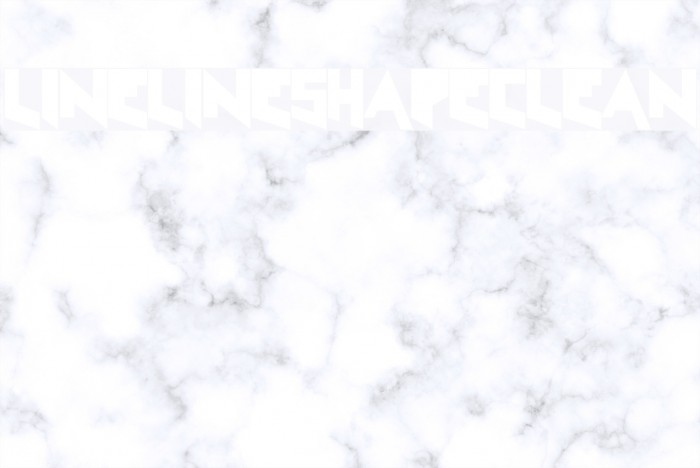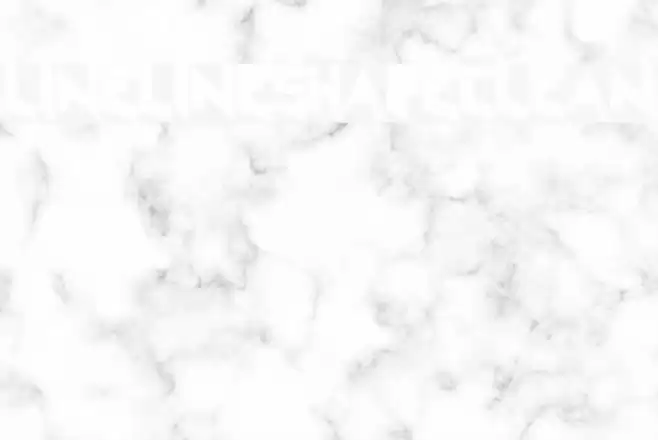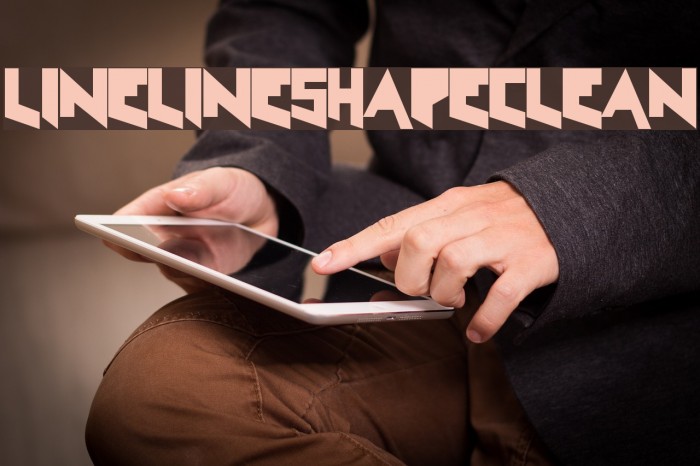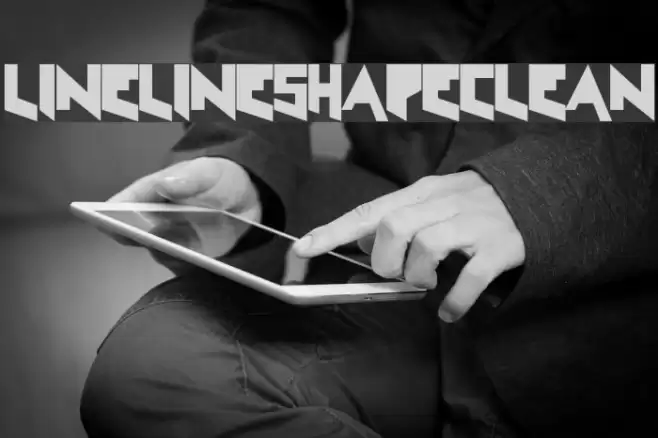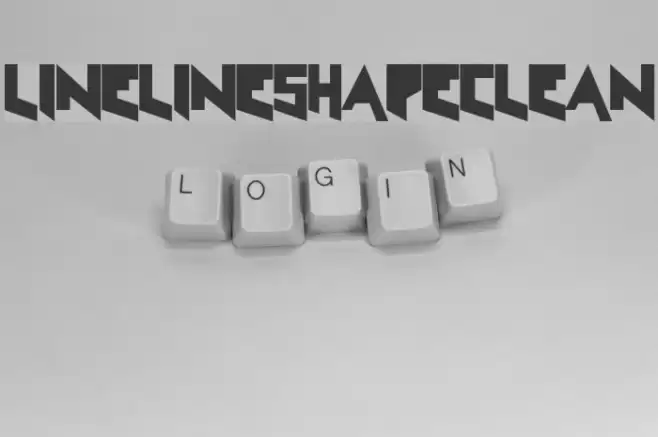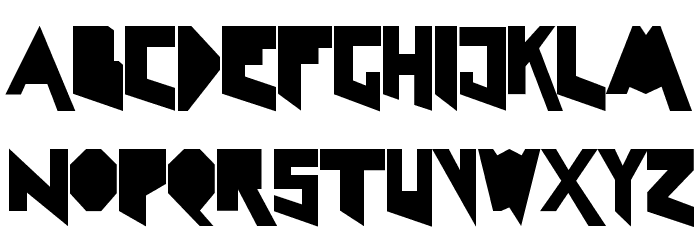
LineLineShapeClean Font
LineLineShapeClean Description
This font features a bold and geometric design, characterized by sharp angles and a blocky appearance. The uppercase and lowercase letters are crafted with a consistent angular style, giving the font a futuristic and edgy look. The numbers and special characters maintain this geometric theme, ensuring uniformity across all glyphs. The font's unique style makes it stand out, with each character appearing as if it is carved from a solid block, emphasizing its boldness and strength. This font is ideal for projects that require a modern and striking visual impact.